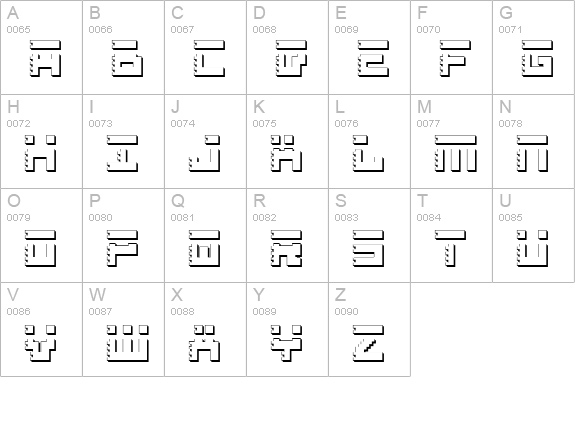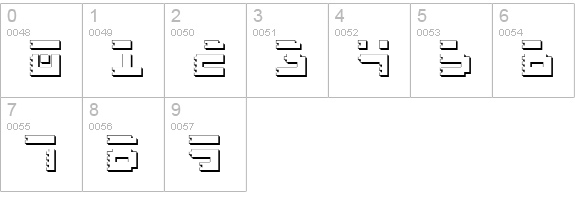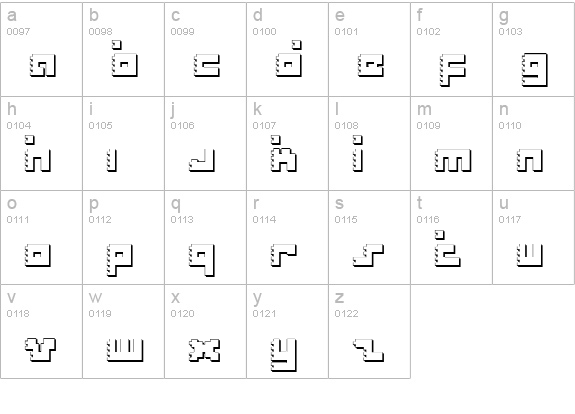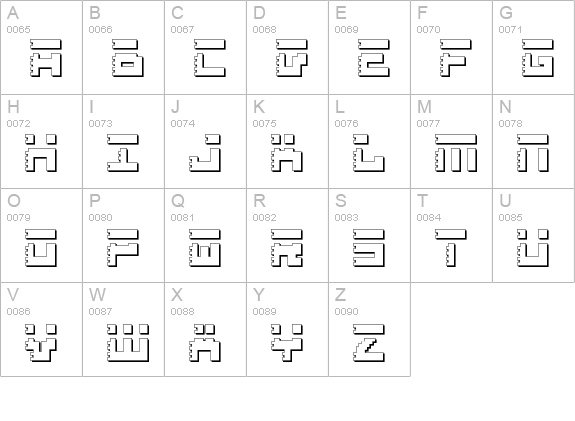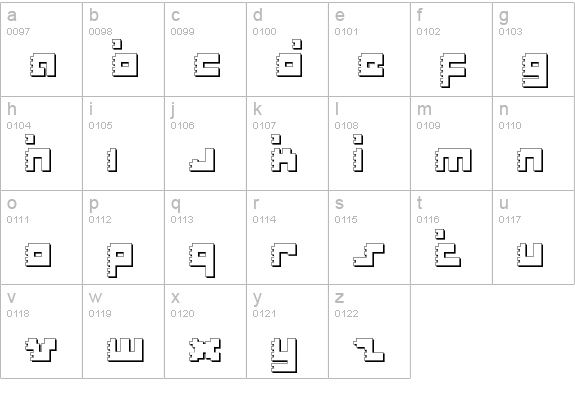
Introducing Roid Rage Shadow font, a bold and dynamic typeface that exudes strength and power. This font is perfect for making a statement and adding a touch of aggression to your designs. With its sharp edges and striking shadow effect, Roid Rage Shadow demands attention and leaves a lasting impression. Best of all, Roid Rage Shadow font is available for free download at FontsMarket.com. Whether you're working on a poster, logo, or any other creative project, this font will help you make a bold statement and stand out from the crowd. Download Roid Rage Shadow today and unleash the power of your designs!